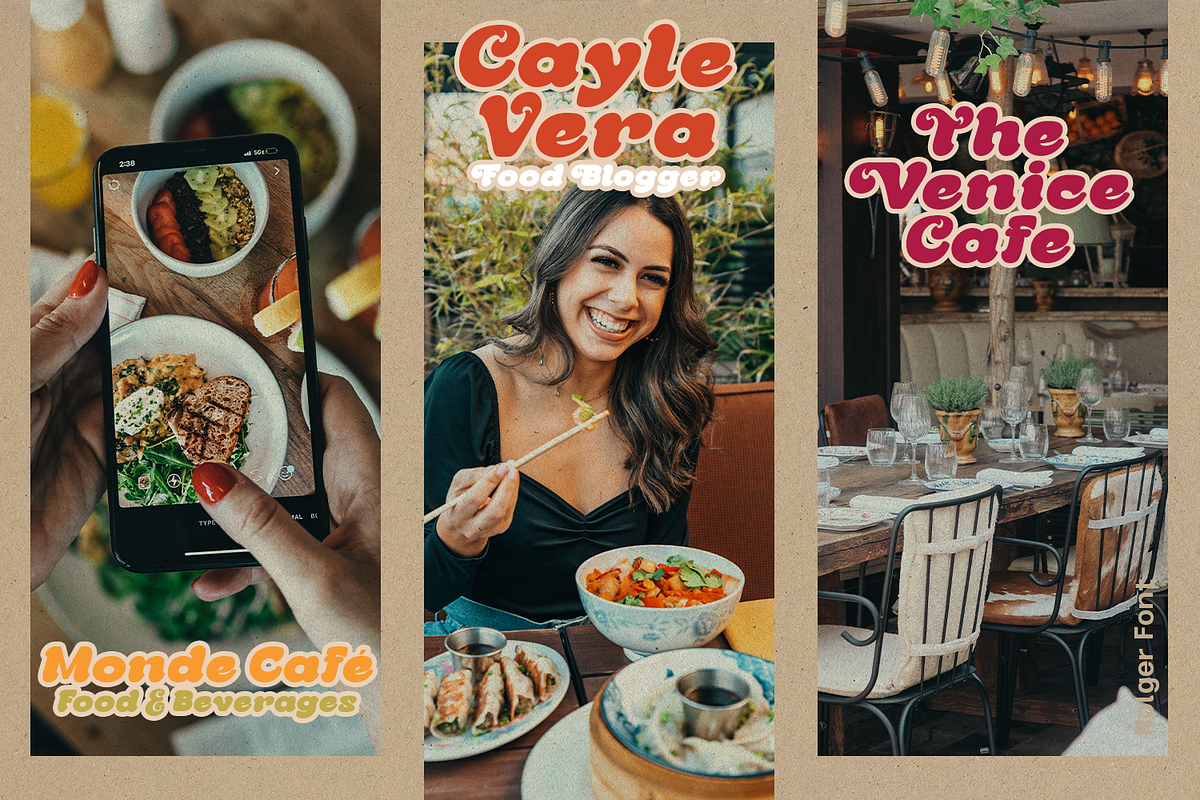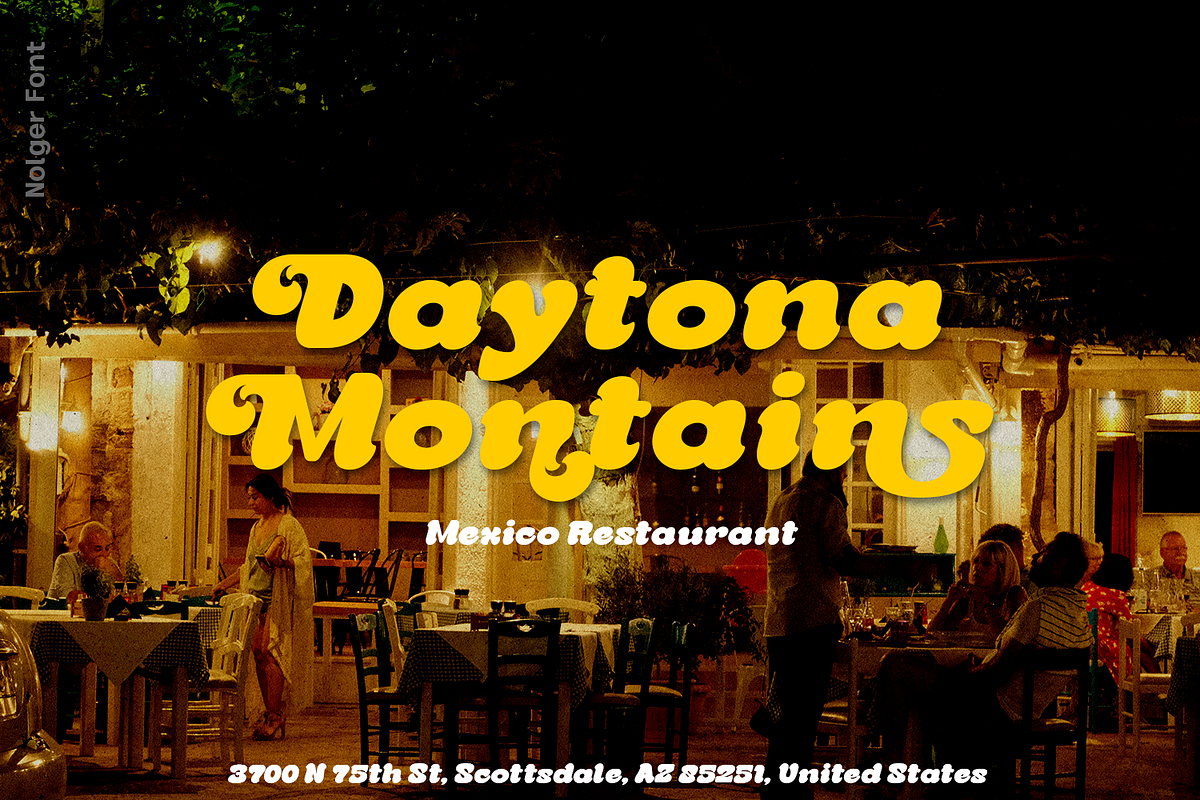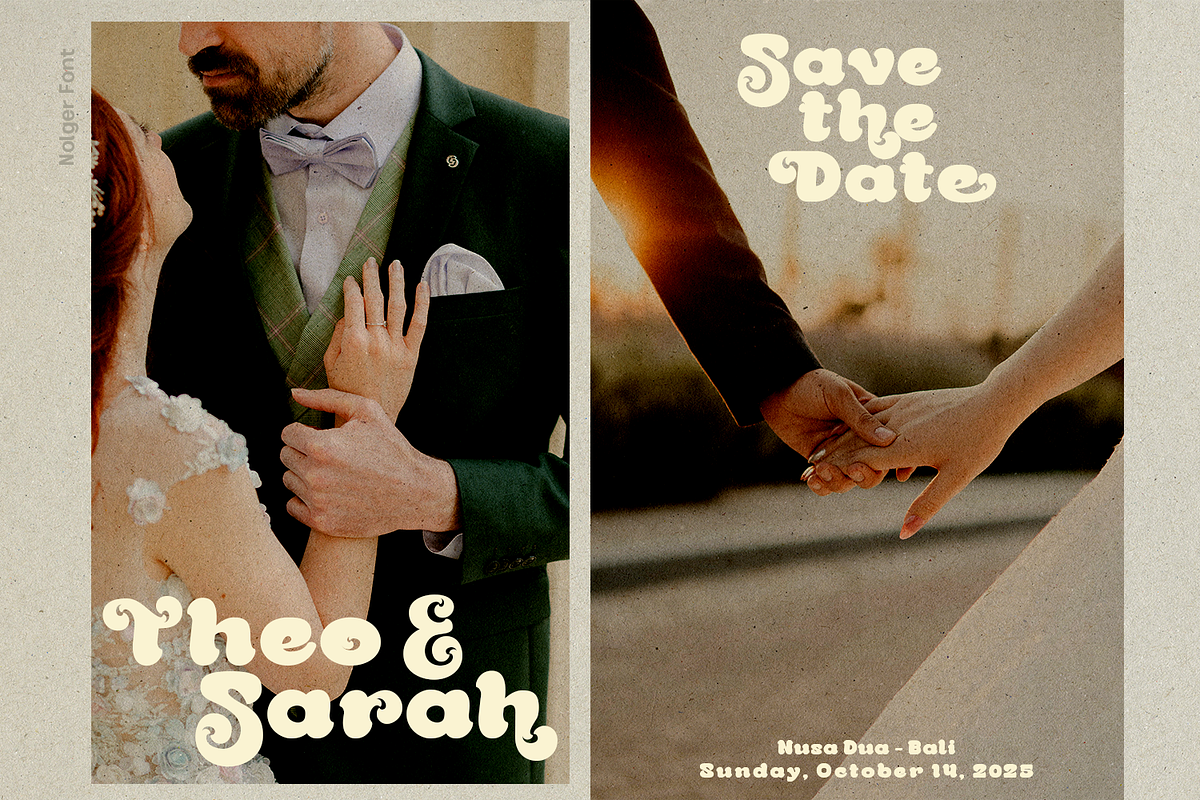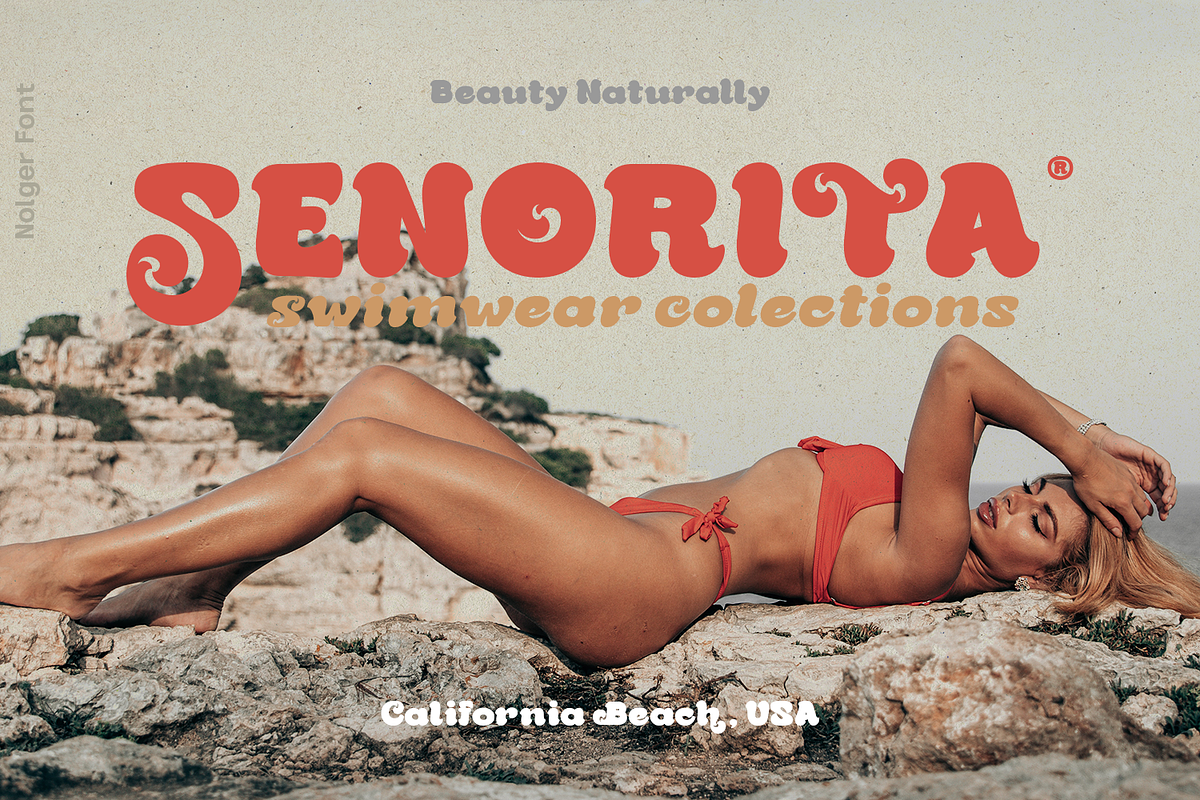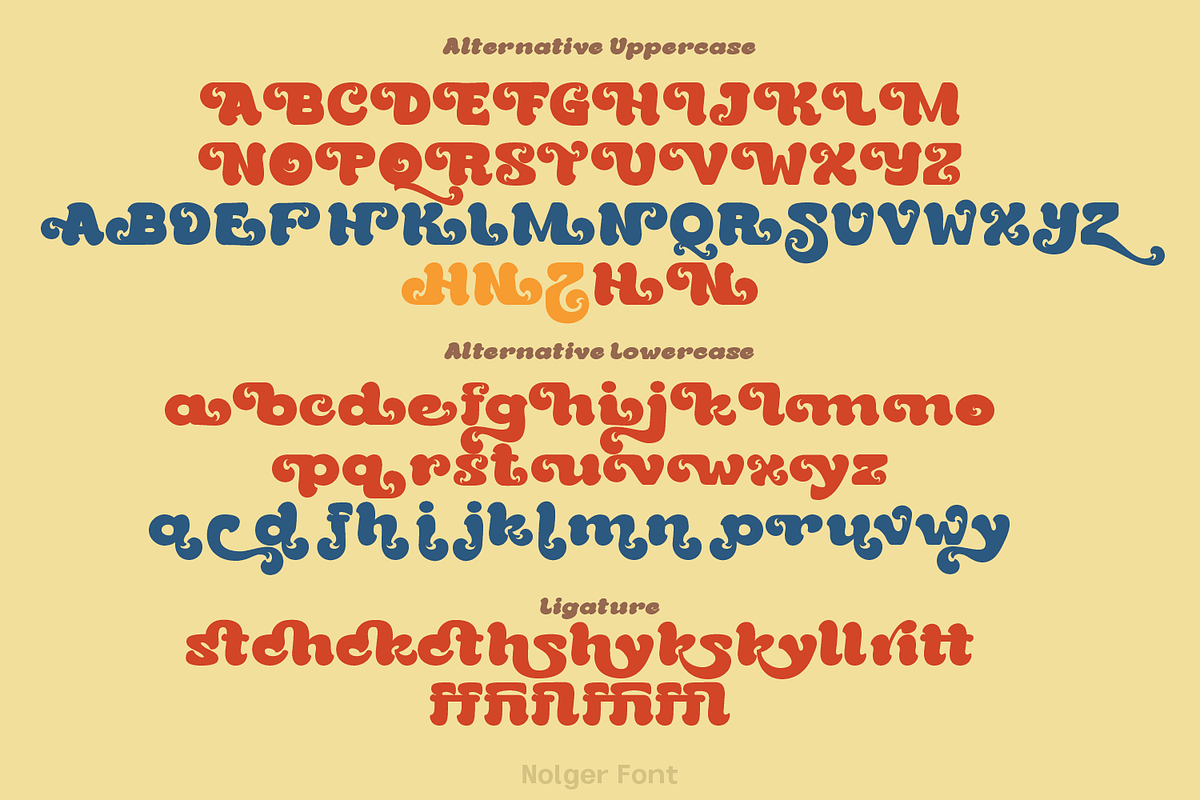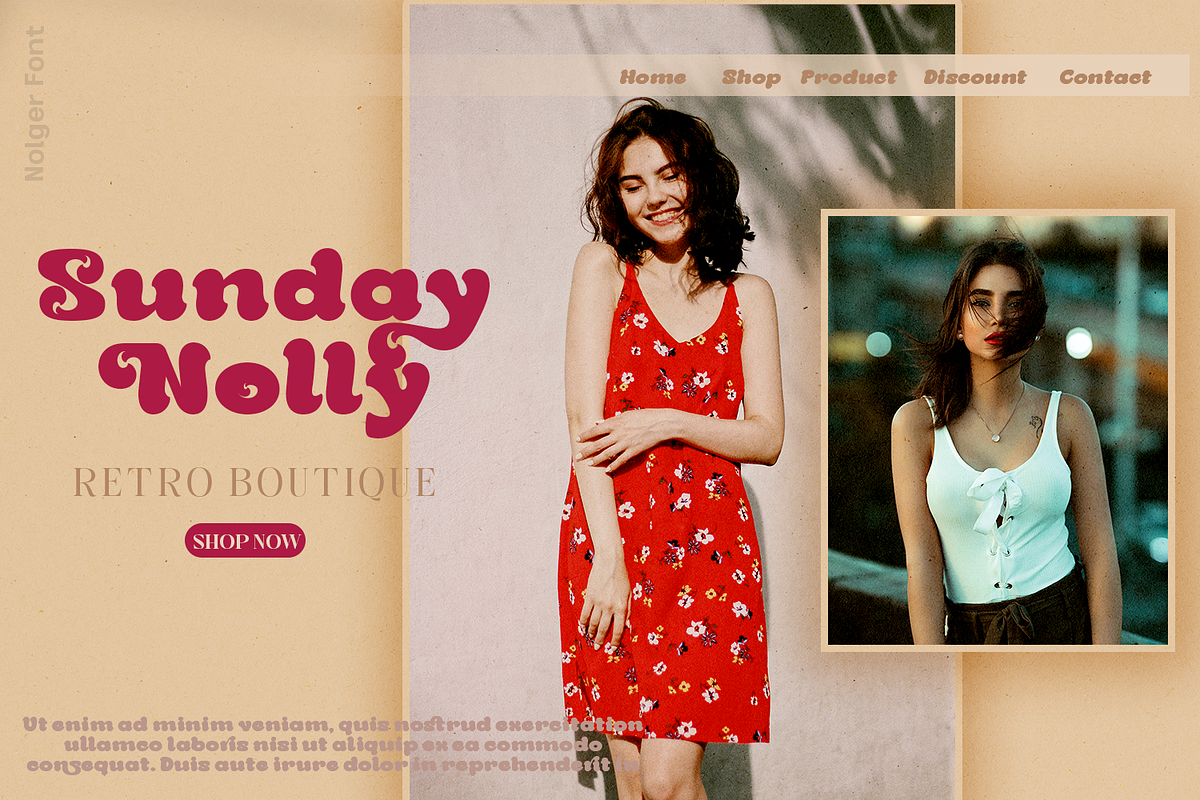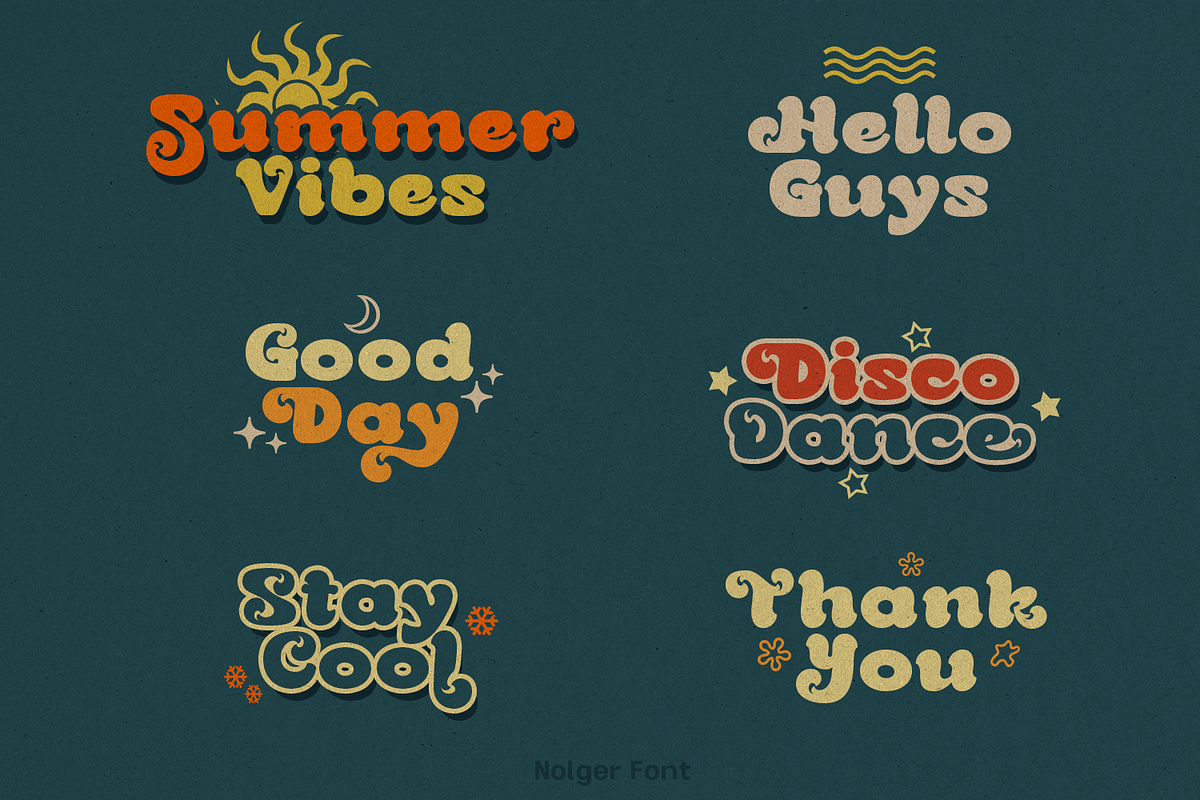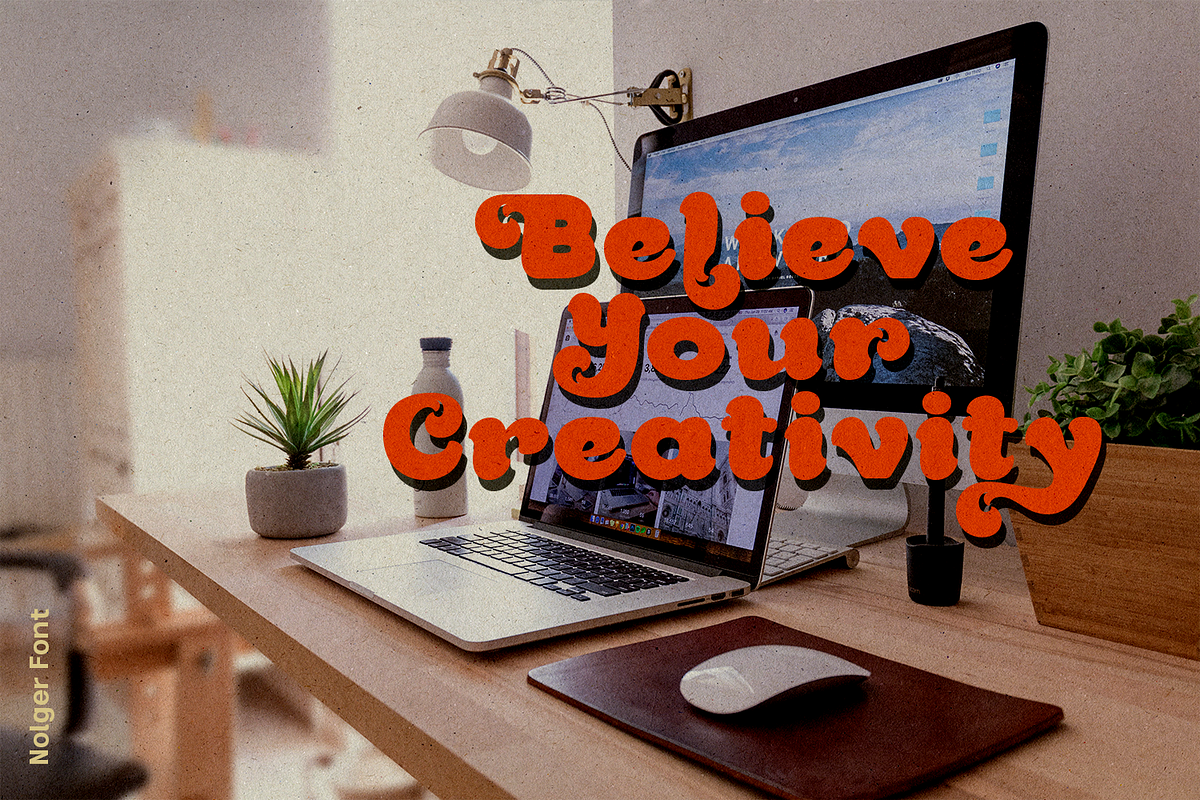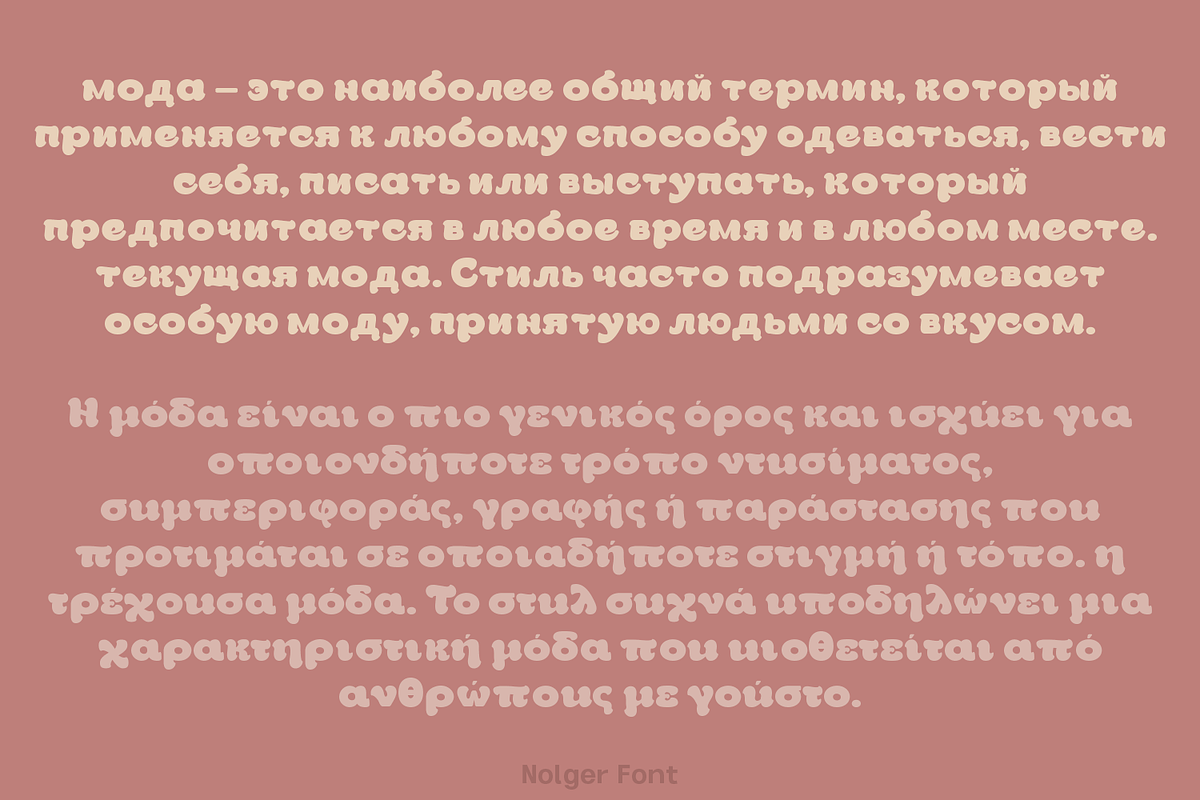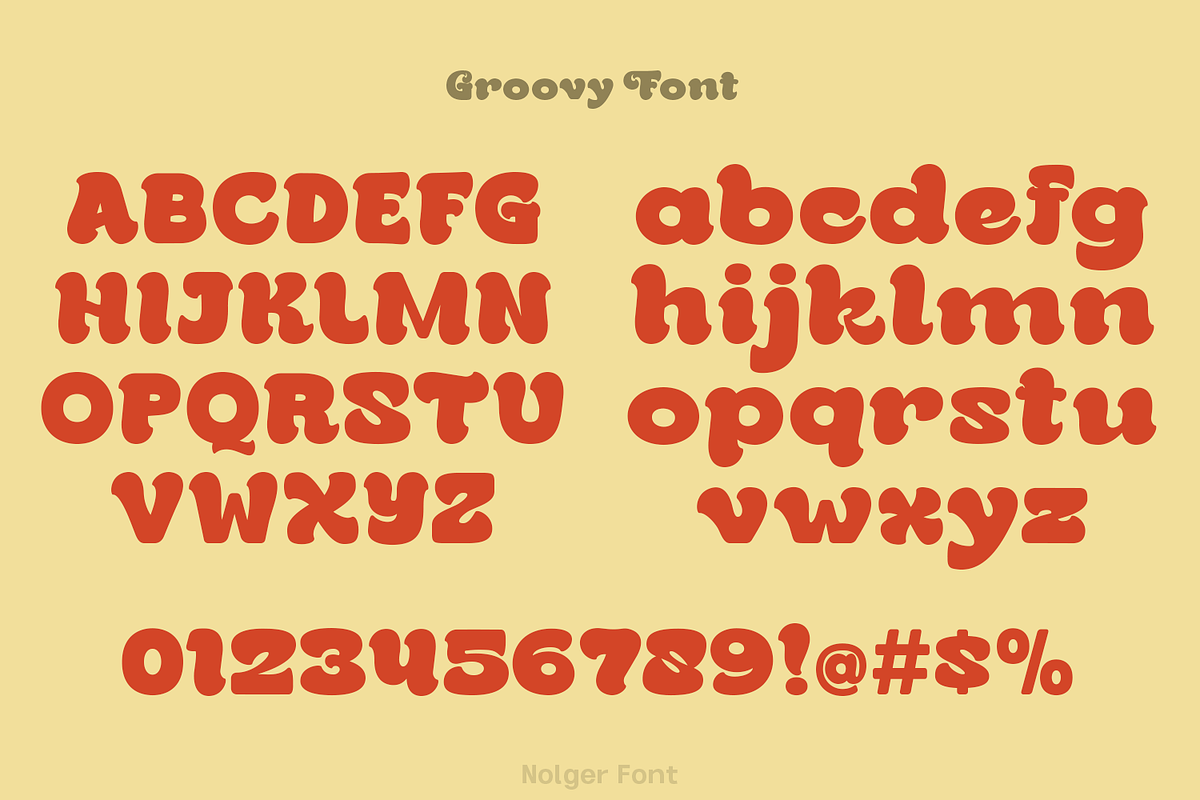
Nolger - Retro Font
Nolger is a groovy font come with 90's groovy style serif. Groovy and refined you can explore and combine creating rhythm for comfortable reading. This font supports more than 100 Latin-based languages and has extensive Cyrillic and Greek support for languages like Russian, Bulgarian, Ukrainian, and many more.
- International Glyphs
- Cyrillic & Greek